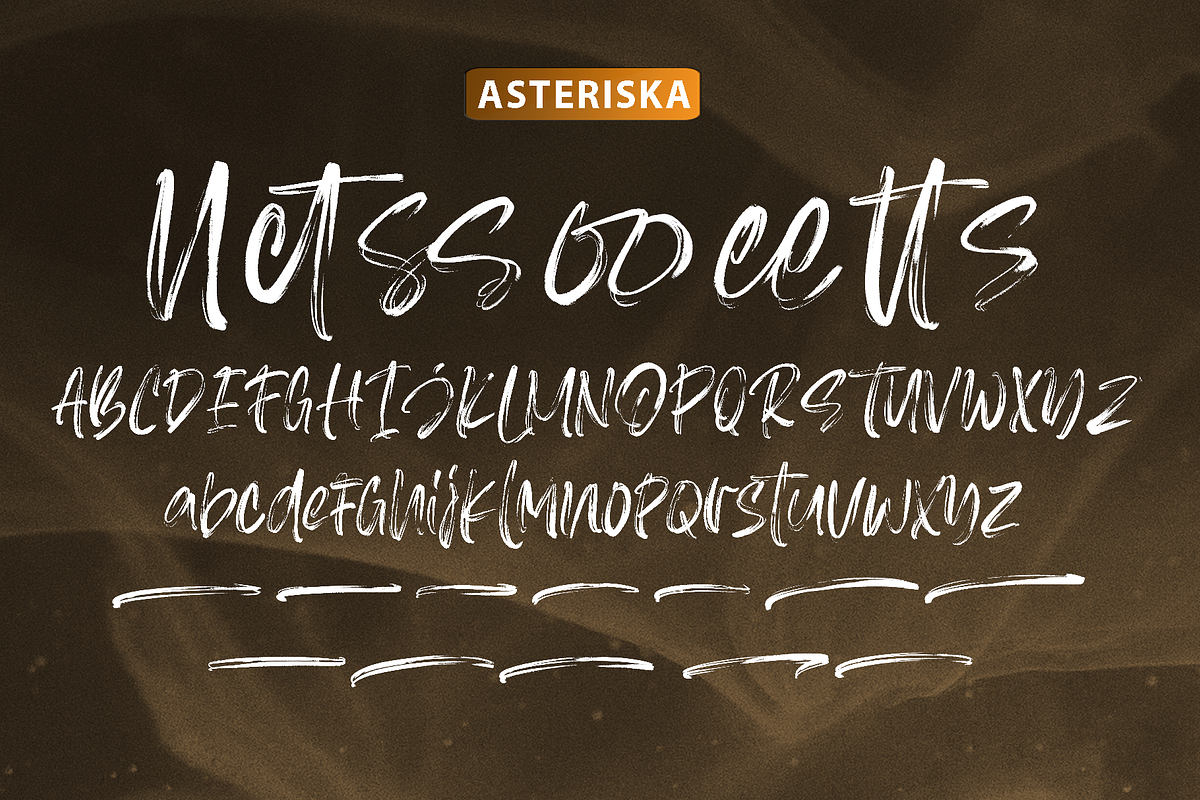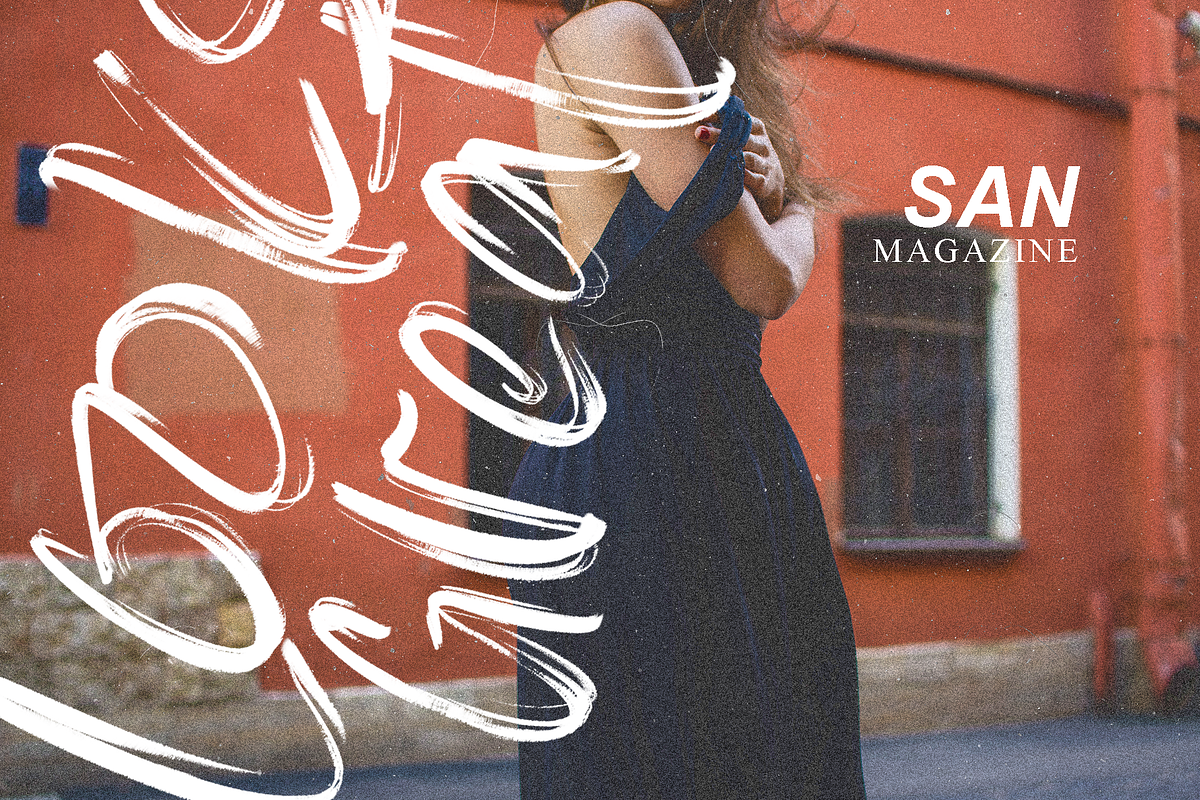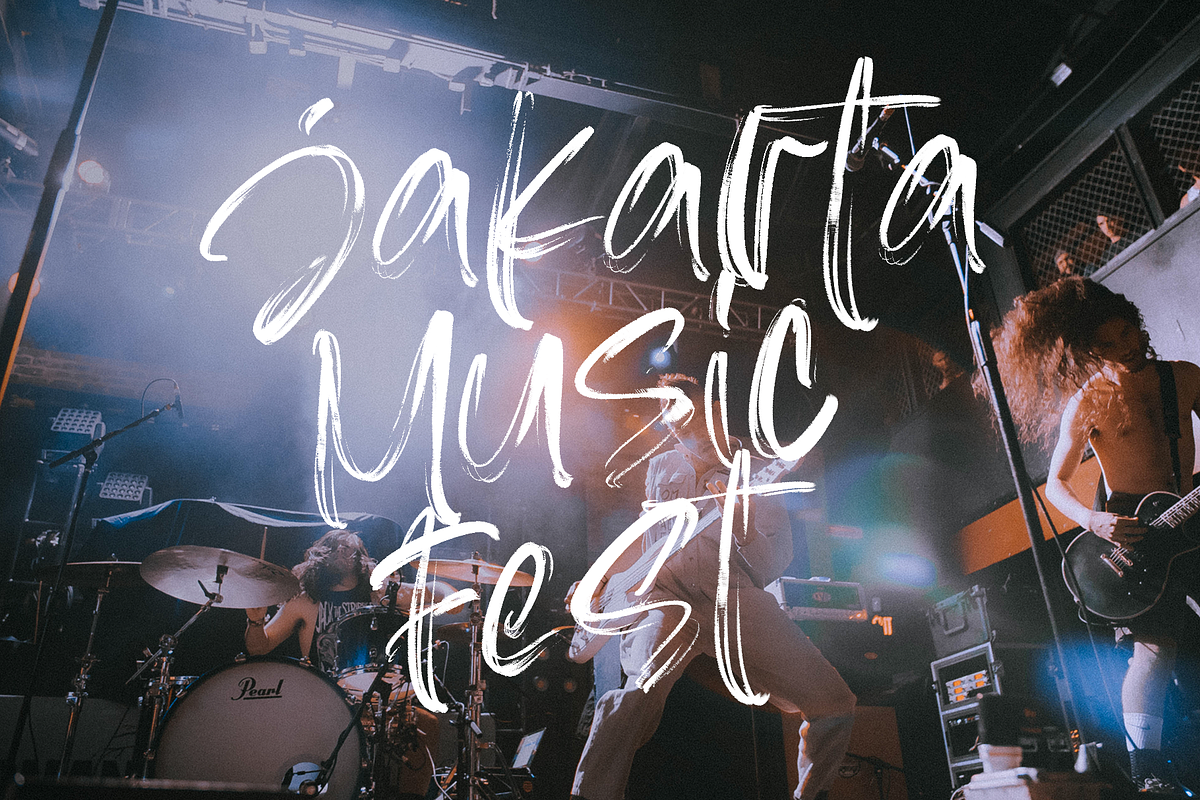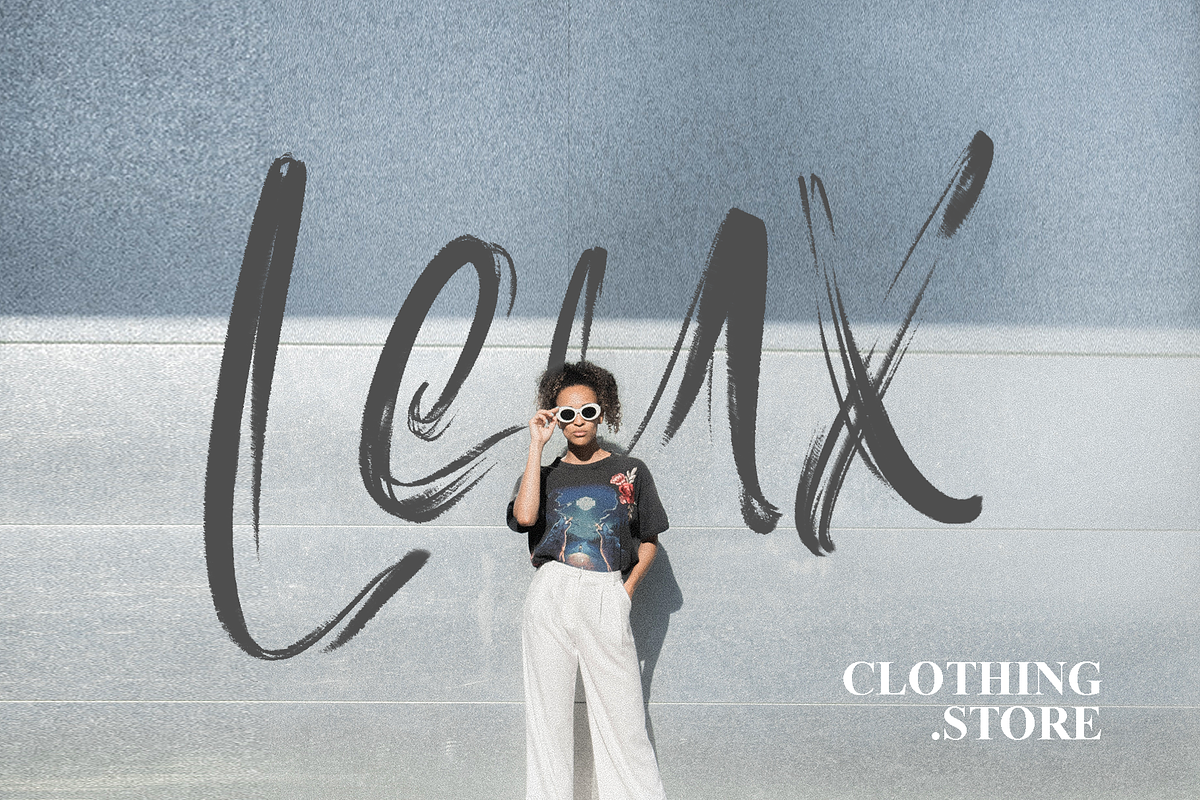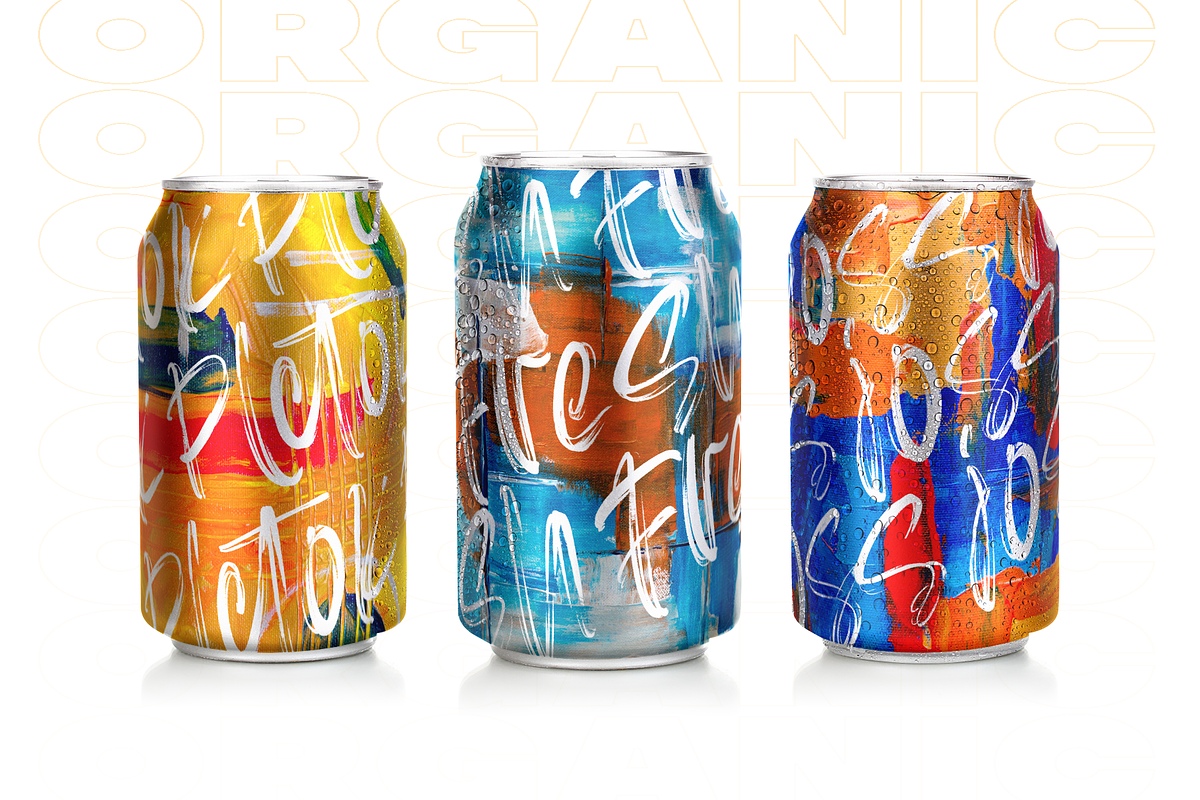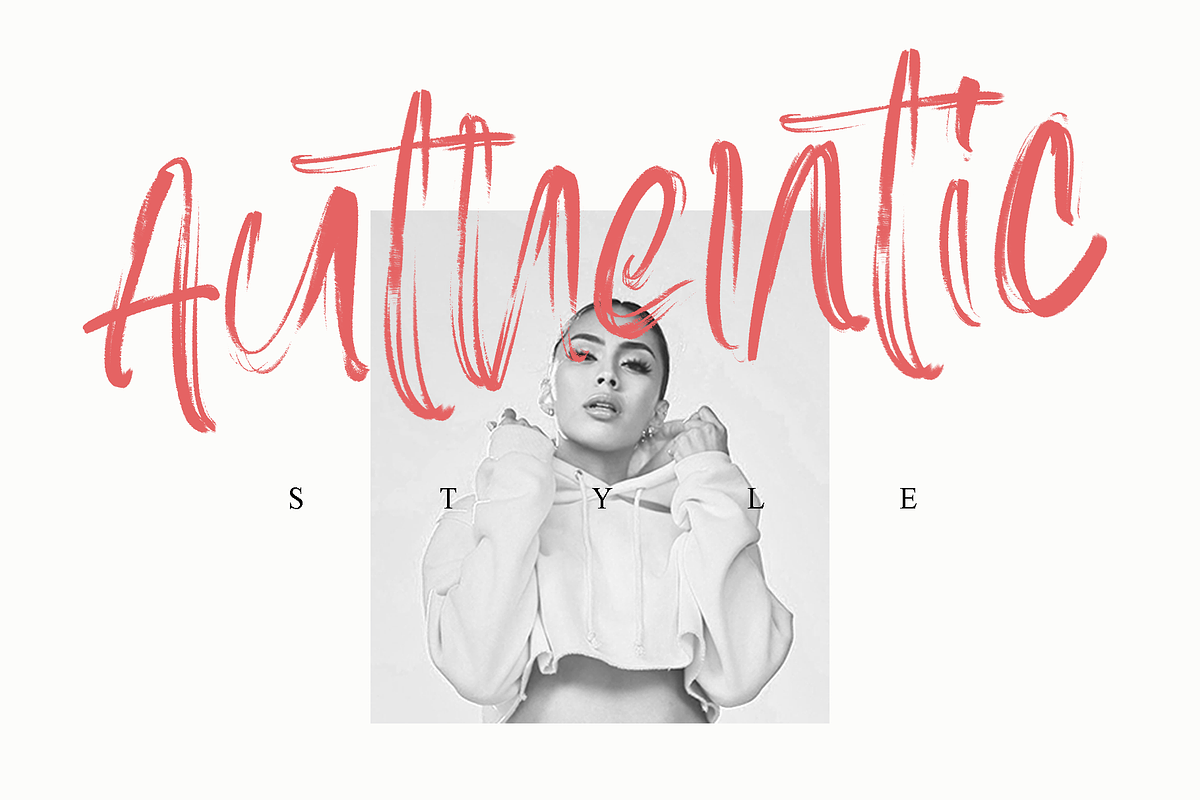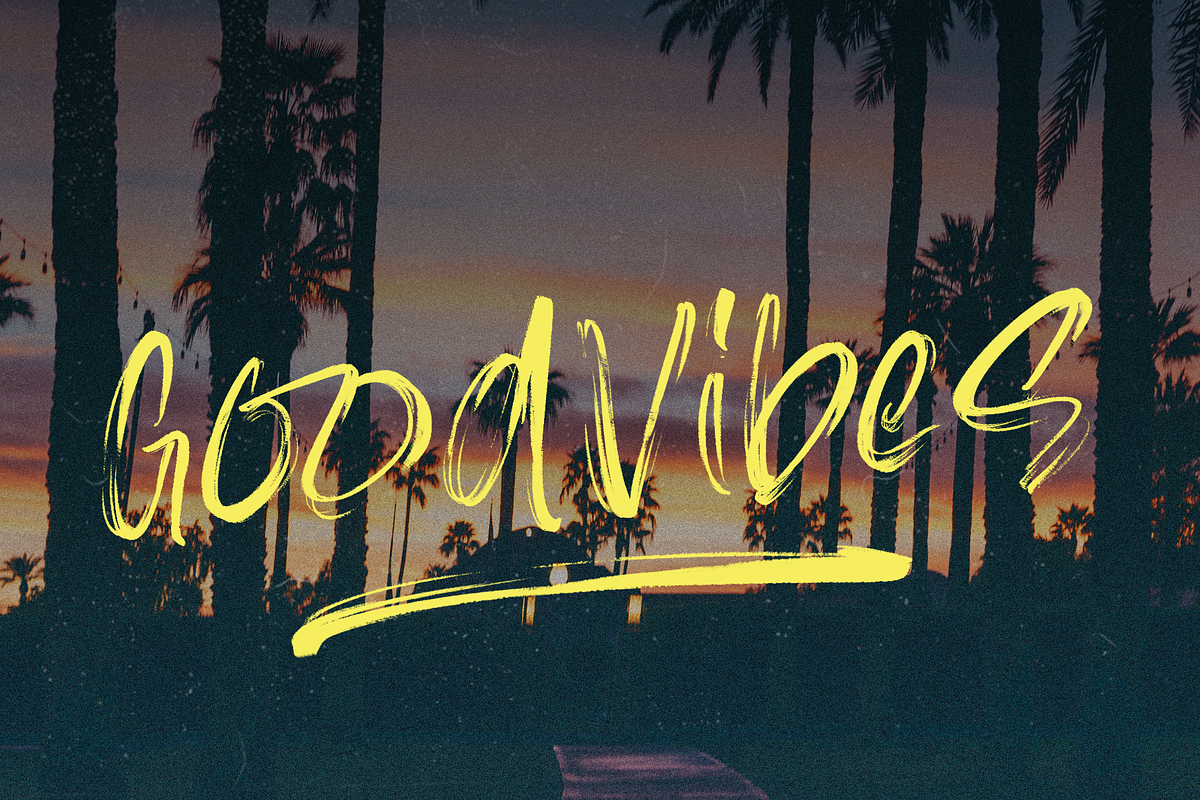
Asteriska SVG Font is the newest font from us that is SVG type. This Asteriska font has the advantage of a random texture but is still pleasing to the eye and this applies to all letters. This font looks strong, realistic, and different from other fonts. This font is very suitable for various media and different design styles
The font has two versions namely Regular and SVG which include Uppercase, Lowercase, Numbers, Punctuation, Ligatures, Alternates, Swashes
Multilingual Support: ÀÁÂÃÅÄÆÇĆČÐÈÉÊËĚÌÍÎÏÑŃŇÒÓÔÕÖŒØÙÚÛÜŮÝŸ àáâãåäæçćčèéêëěìíîïñńňòóôõöœøùúûüůýÿß